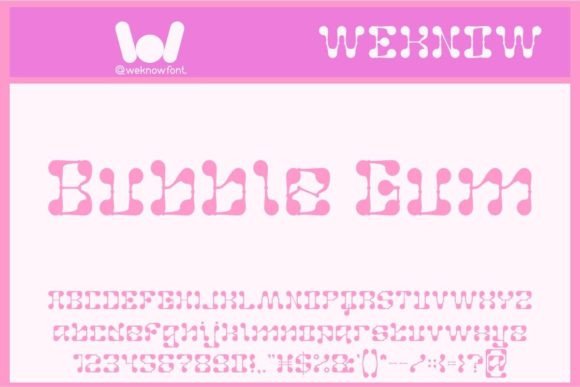
The Ultimate Display Font: Bubble Gum
Have you ever been in the middle of a design project, pouring your heart and soul into it, only to get stuck on one thing: the font? I recall a particularly frustrating experience when I was working on a logo design for a trendy new cafe. The client wanted something fun, playful, and Instagram-worthy, but I just couldn’t find the right fit. That was until I stumbled upon Bubble Gum, an eclectic, multi-faceted display font that instantly captured the essence of the brand.
What Makes Bubble Gum So Special?
Bubble Gum is more than just a font – it’s an experience. Its playful dots and rounded features exude an appealing charm that’s hard to resist. The fun and frothy spirit of this font makes it the favored choice for a diverse range of applications, from crafting a distinctive logo or logotype to achieving the right flow for headlines, fostering a unique corporate or brand identity, and even striking the right tone in the apparel industry.
• ✨ Playful and Fun: Bubble Gum’s unique design makes it perfect for projects that require a dash of whimsy and fun.
• ✅ Versatile: This font seamlessly integrates into diverse creative platforms, from musical compositions to movie posters, magazine layouts, and social media posts.
• 💡 Instant Recognition: The distinctive style of Bubble Gum ensures that your creative projects will stand out and grab attention.
⚠️ While Bubble Gum is incredibly versatile, it’s essential to note that its playful nature may not be suitable for more formal or traditional projects. Additionally, some users may find the font’s eclectic style a bit overpowering for smaller text sizes.
🤔 One thing to keep in mind is that Bubble Gum’s OpenType features and glyphs may require a bit of experimentation to get the most out of the font.
The Designer Inspiration Behind Bubble Gum
The story goes that the designer behind Bubble Gum was inspired by the whimsical world of childhood, where imagination knows no bounds. With a passion for playful design and a love for experimenting with typography, the designer set out to create a font that would capture the essence of fun and creativity. And so, Bubble Gum was born – a font that’s equal parts playful, eclectic, and charming.
Q: What is the best way to use Bubble Gum in a logo design?
A: Bubble Gum is perfect for logo designs that require a playful, attention-grabbing font. Experiment with different font sizes, colors, and styles to find the perfect fit for your brand.
Q: Can I use Bubble Gum for body text?
A: While Bubble Gum is primarily designed for display purposes, it can be used for body text in certain contexts. However, it’s essential to consider the font’s readability and legibility at smaller text sizes.
Q: Is Bubble Gum suitable for formal or traditional projects?
A: Bubble Gum’s playful nature may not be suitable for more formal or traditional projects. However, it can be used in certain contexts, such as event invitations or marketing materials, to add a touch of whimsy and personality.